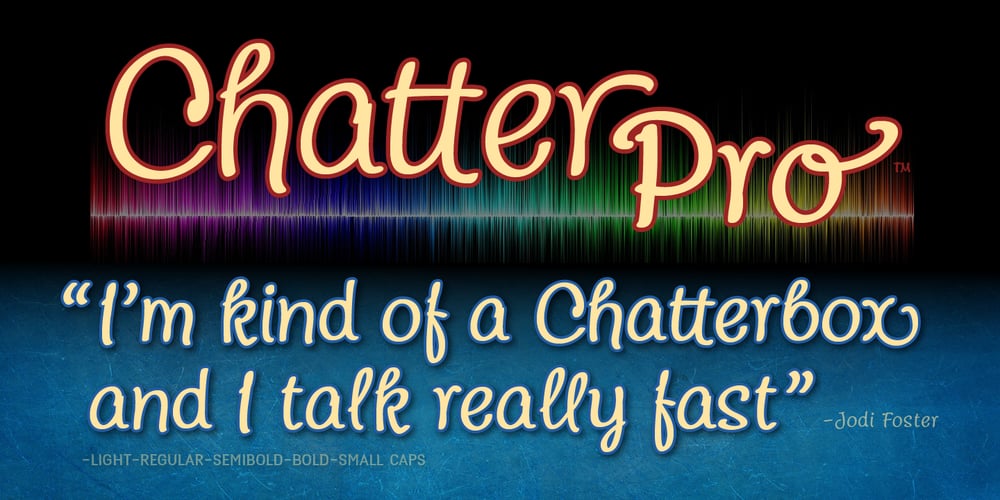
Chatter Pro Font Family was designed by John Nahmias and published by Jonahfonts. Chatter Pro contains 4 styles and family package options. Chatter Pro is a handwritten unconnected script face in four styles: Light, Regular, Semibold and Bold with Small-Caps. Chatter Pro is a Pro-version of my previous font ‘Chatter’. A free style specifically designed for Packaging but still works well for Greeting cards, Magazines, Posters and Advertising Ads. Invoking the OpenType CONTEXTUAL ALTERNATIVE variant. A space after any lower-case glyph will produce the word terminal. (Opentype variants may only be accessible via Opentype-Aware applications.)